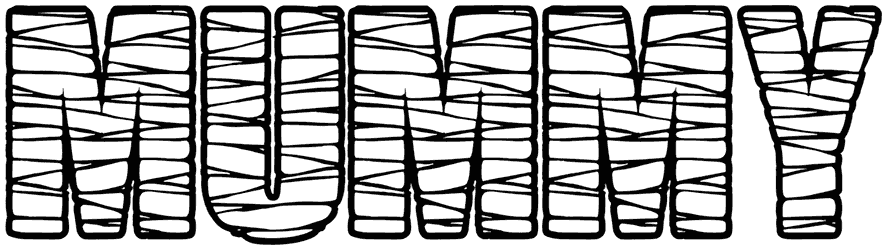
Mummy Font
Mummy is inspired by embalmed corpses and can bring the best elements of this spooky night to life in your writings. The special and unique design of this Halloween font has made the lack of lowercase letters and numbers not felt in it, and every design will press the download button without delay.
Four overlapping fonts.